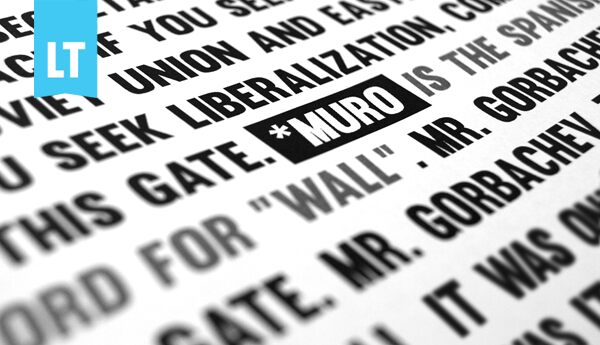
Muro Slant is a bold, condensed sans serif font that exudes a striking, modern aesthetic. With its distinctive angular slant and robust character shapes, this font commands attention and lends an edgy, industrial vibe to any design. The condensed width allows for compact, space-efficient typesetting without sacrificing legibility, making it an ideal choice for headlines, branding, and editorial layouts.
Muro Slant's versatility extends to various applications, from eye-catching posters and packaging to digital interfaces and advertising campaigns, where its bold, assertive presence can effectively capture the audience's attention.